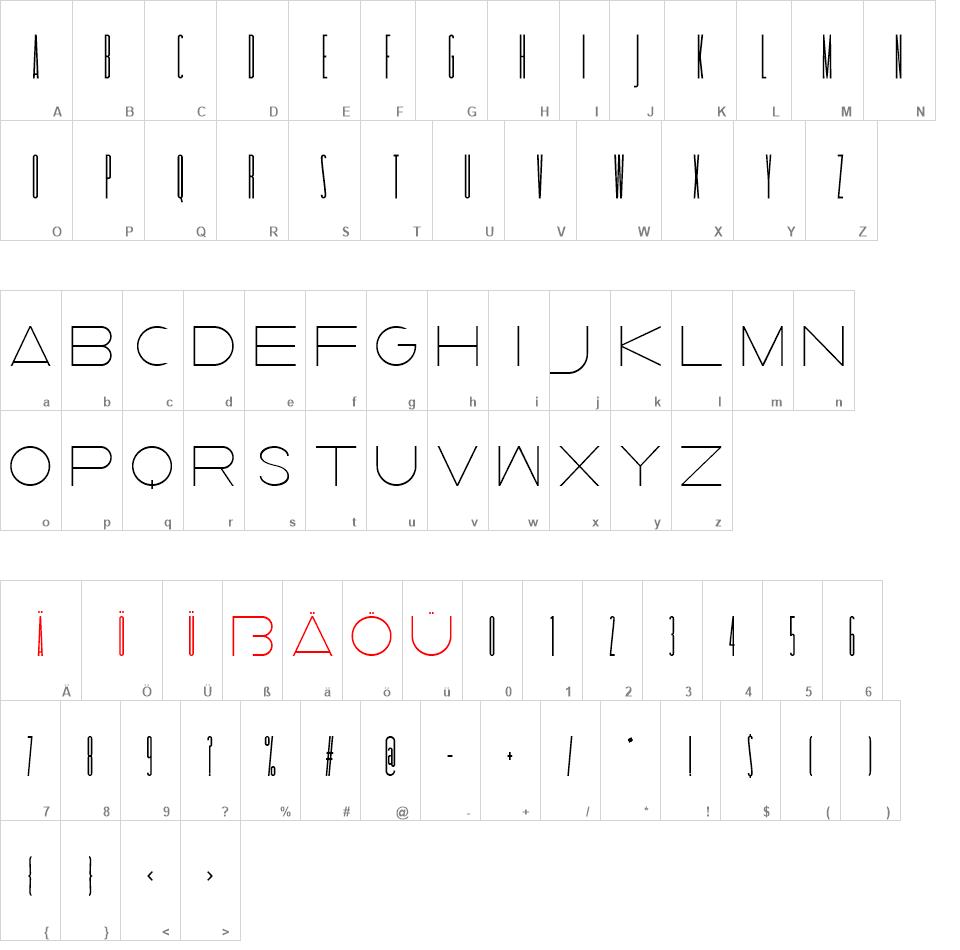
Taller Evolution
Taller Evolution font
Taller Evolution
For anybody with a love for barcodes or a nineties nostalgia comes a tall, decorative, sans serif font designed to create text patterns with a strong vertical emphasis.